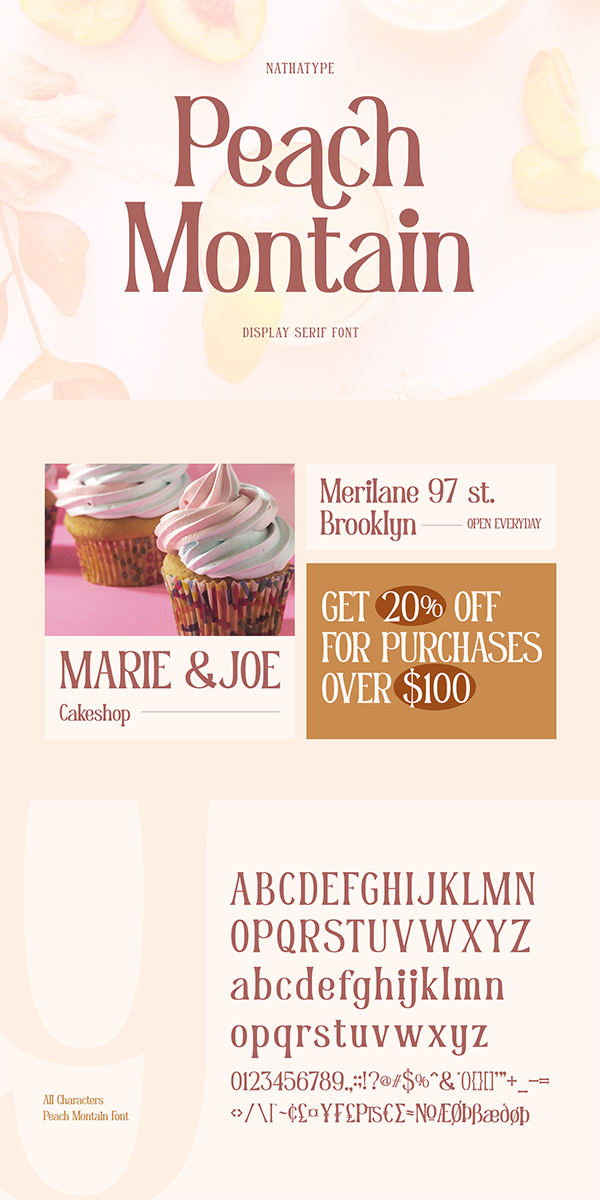
Peach Montain Font
About Peach Montain
Peach Mountain is an elegant, modern, multipurpose display serif font needed by designers today. The simple letters’ morphology has relatively similar proportions. Furthermore, its high contrasts and wide spaces are truly legible with which you can apply for any text sizes. In addition, you can make use of this font’s available interesting features to beautify your designs.